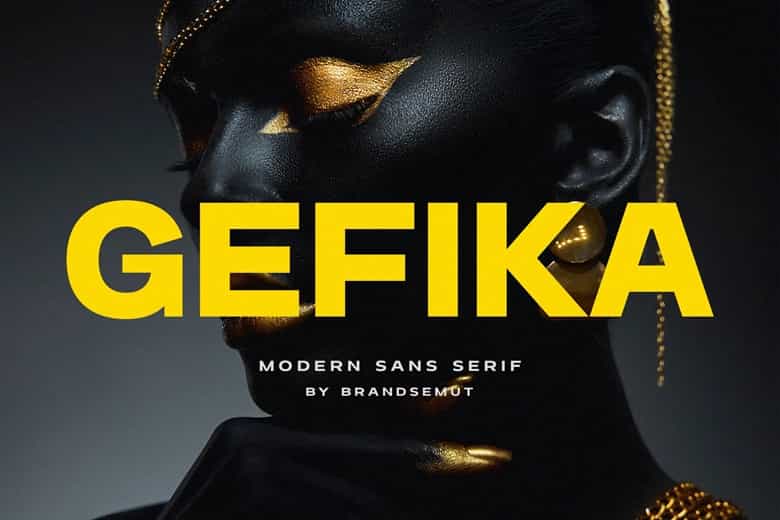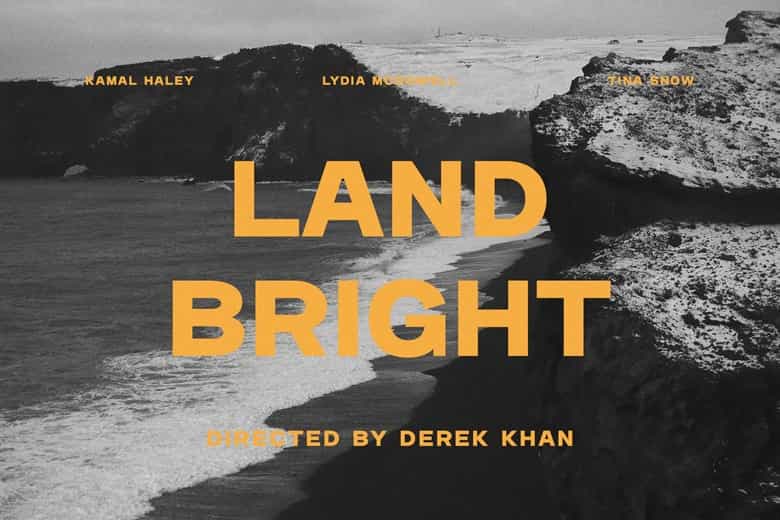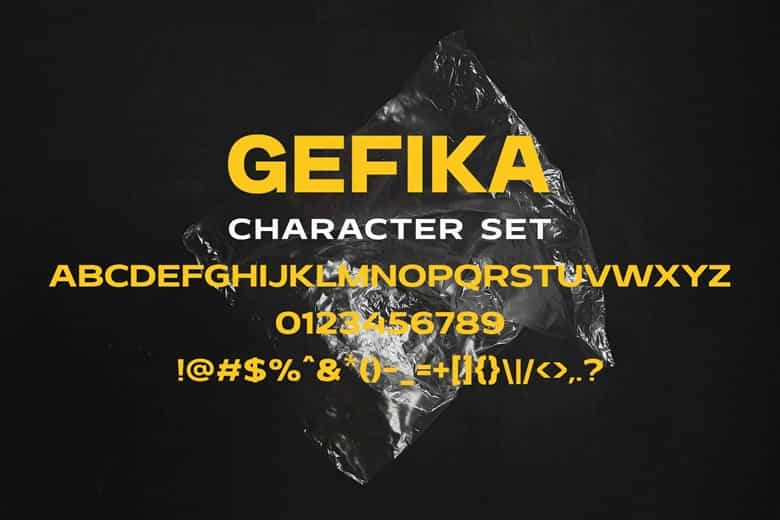
Gefika is a new modern sans serif typeface and that is bold, thick and heavy and that demands attention. It’s easy to read due to uniform strokes and simple design, but also powerful and impactful enough for headlines, titles and branding projects where a bold and modern aesthetic is needed.